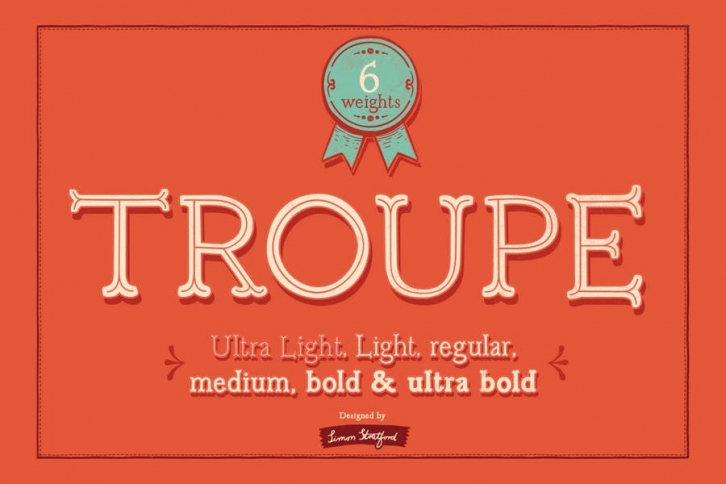
This is Troupe, a new handmade font inspired by hand-drawn lettering, doodles, old posters and other letterforms. The big surprise is that it's not a script typeface, who'd have thought it.
It has 6 weights and 4 styles to choose from, that's a first for me creating a whole family.
Included 6 weights
• Ultra Light
• Light
• Medium
• Regular
• Bold
• Ultra Bold
Included 4 styles
• Inner stroke
• Outline
• Outline filled
• Dots
All the weights and styles are .otf and .ttf. The font contains around 370 characters including uppercase, lowercase, numbers, punctuation, maths and currency. It supports Latin character set for Western European, Central European and South Eastern European. It also has standard ligatures for the 6 weights.